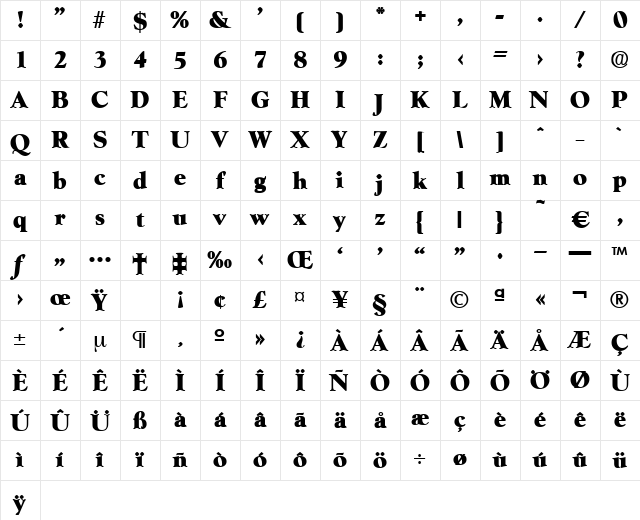
Goudx-ExtraBold Regular Free Font
Goudx-ExtraBold Regular
Design Context for Goudx-ExtraBold
Goudx-ExtraBold is a composed and adaptable typeface that performs quietly and consistently across a wide range of design contexts. Its bold stroke weight gives it real presence on the page.
Pro Tip: Use Goudx-ExtraBold in both headline and body roles to test its range before committing to a single application.